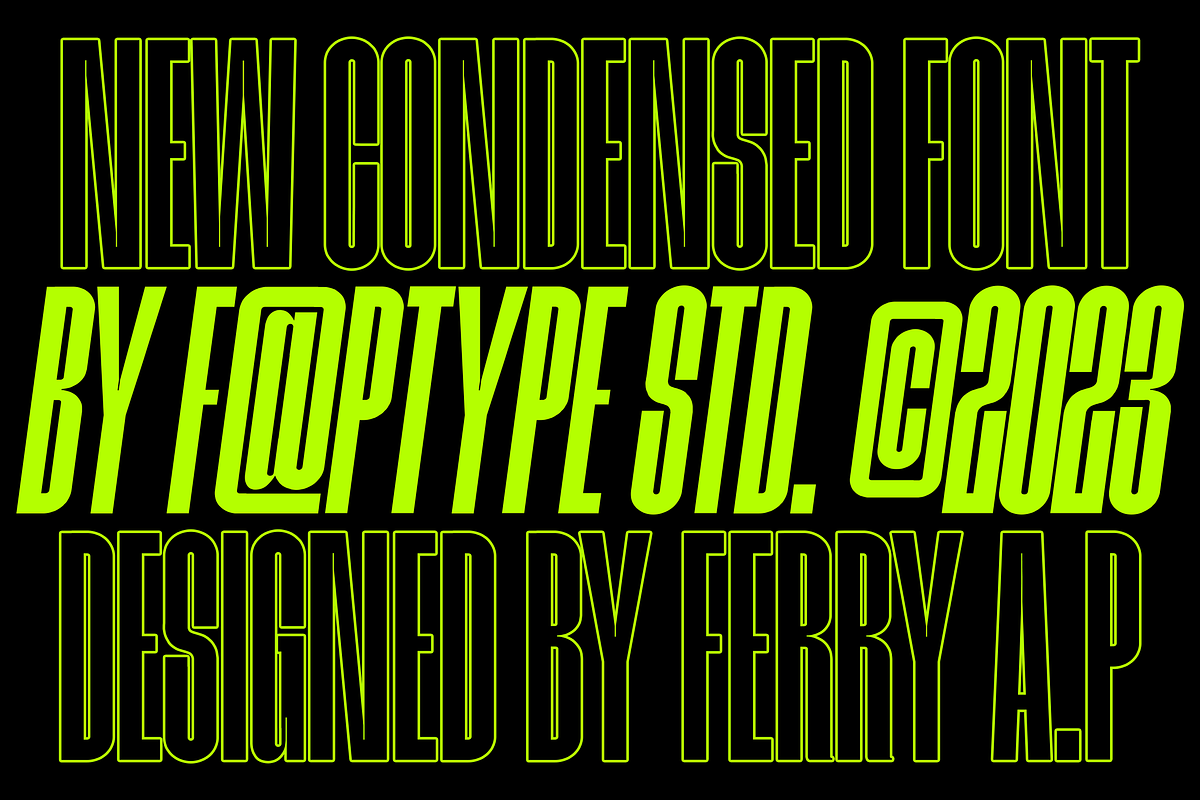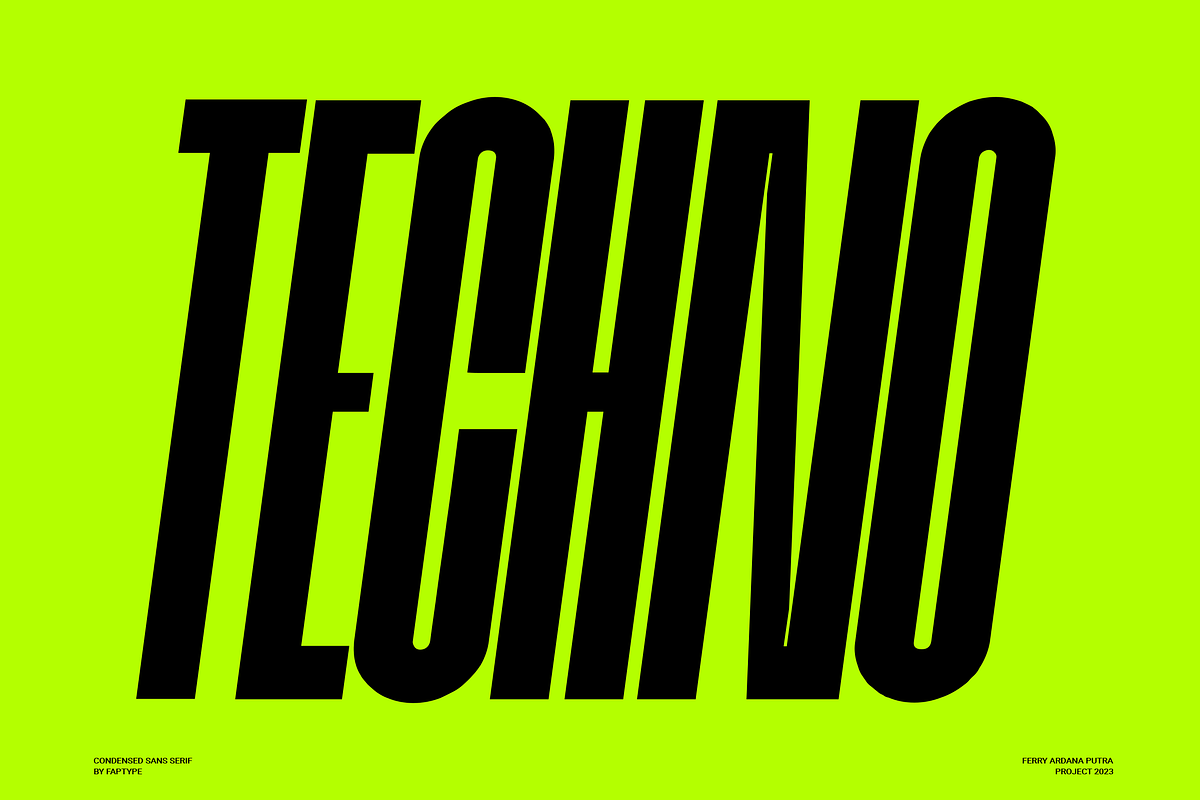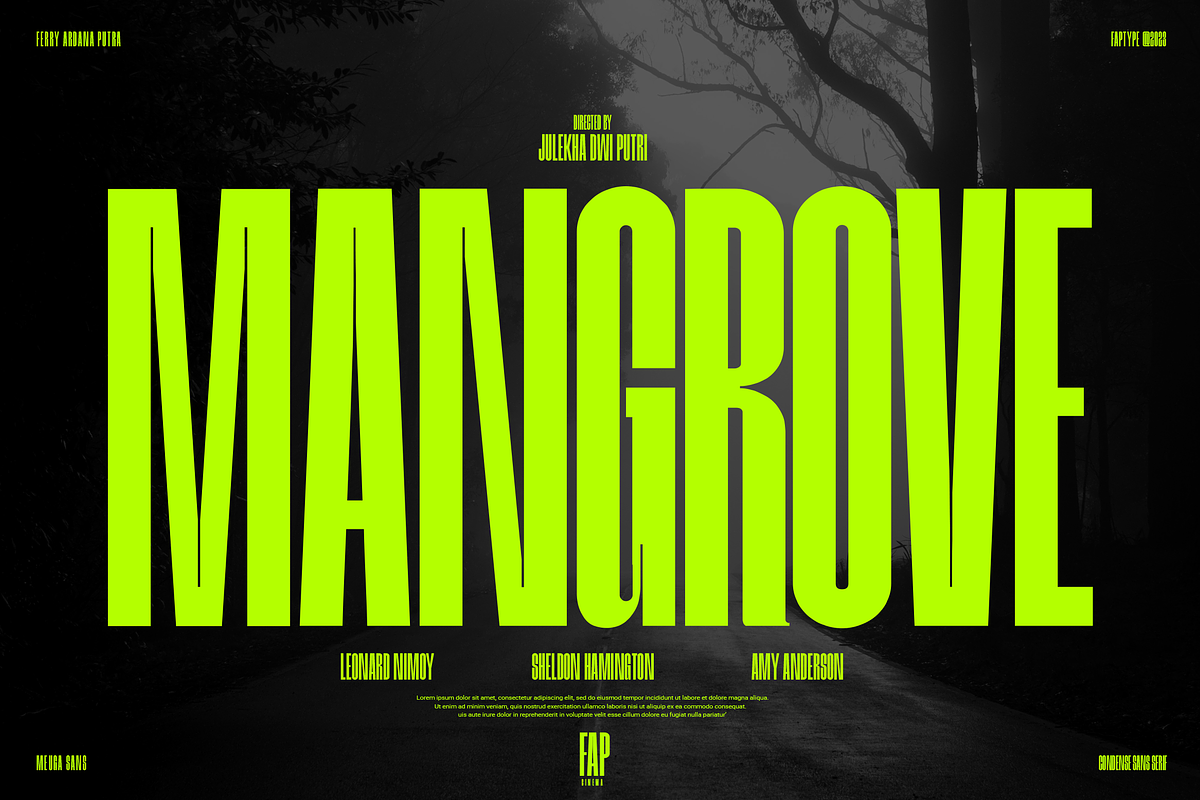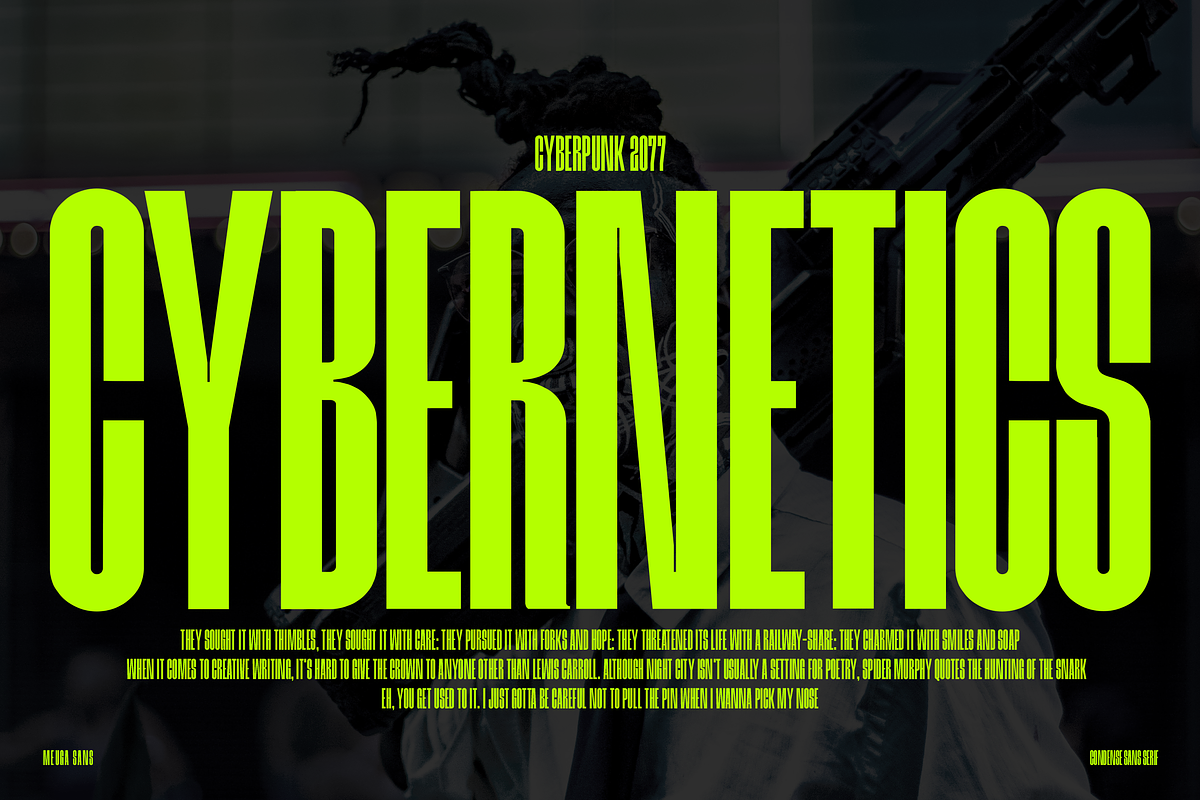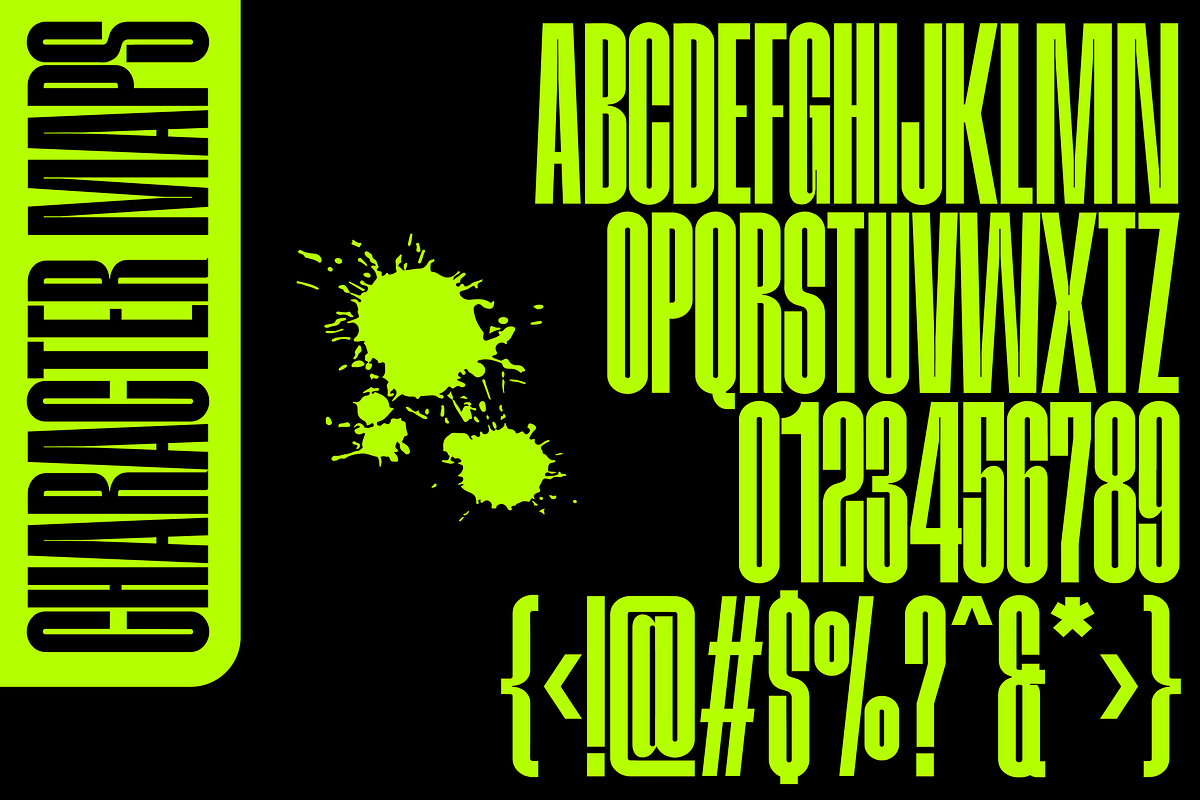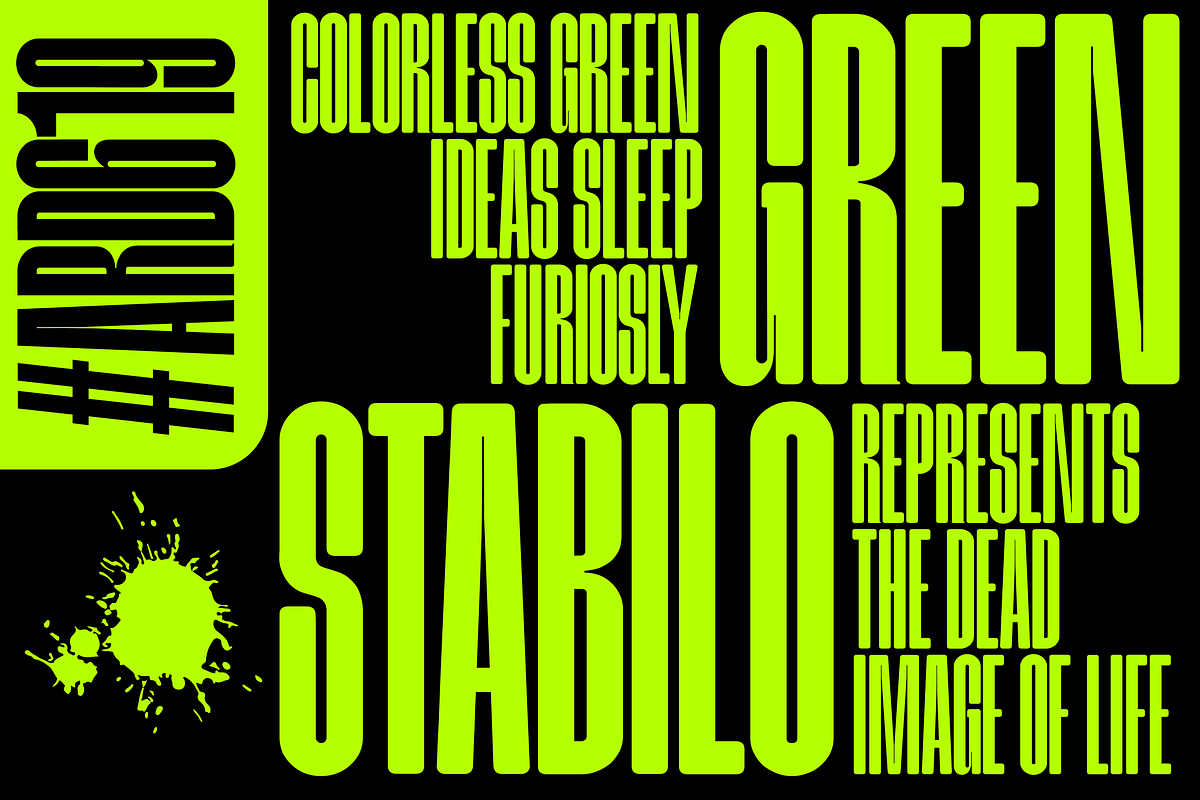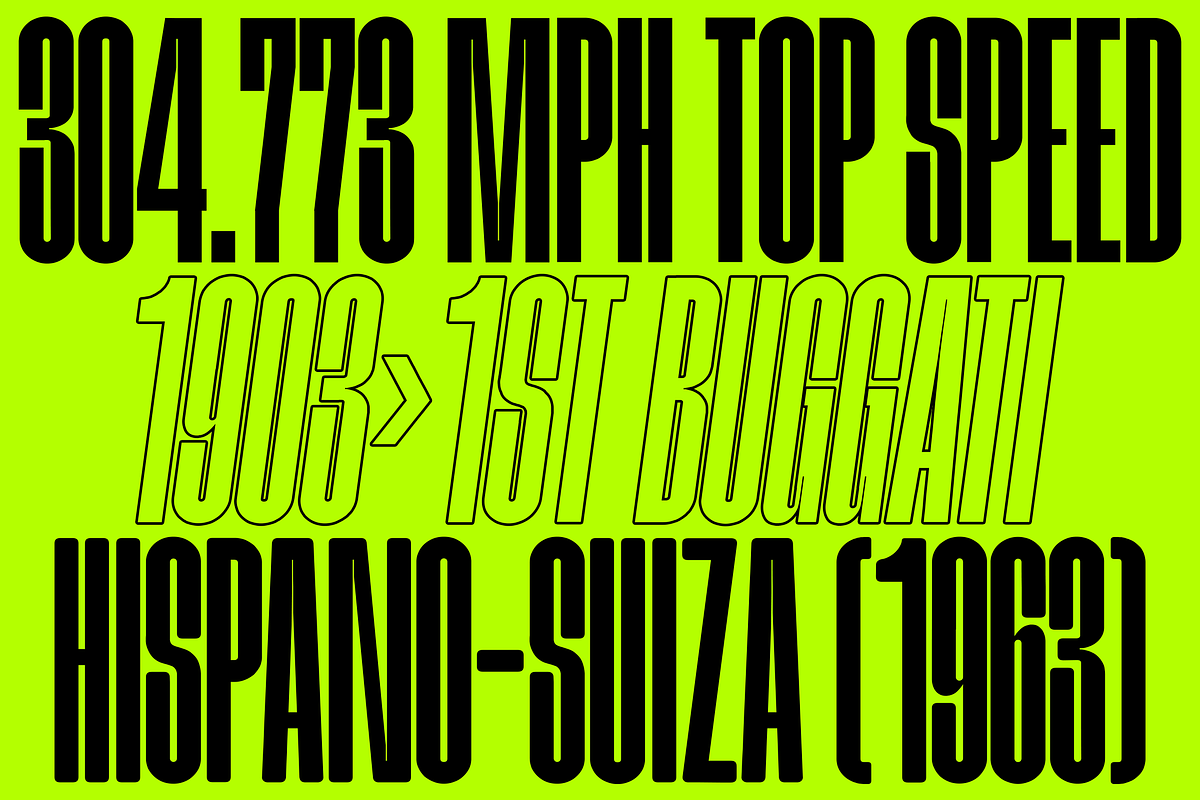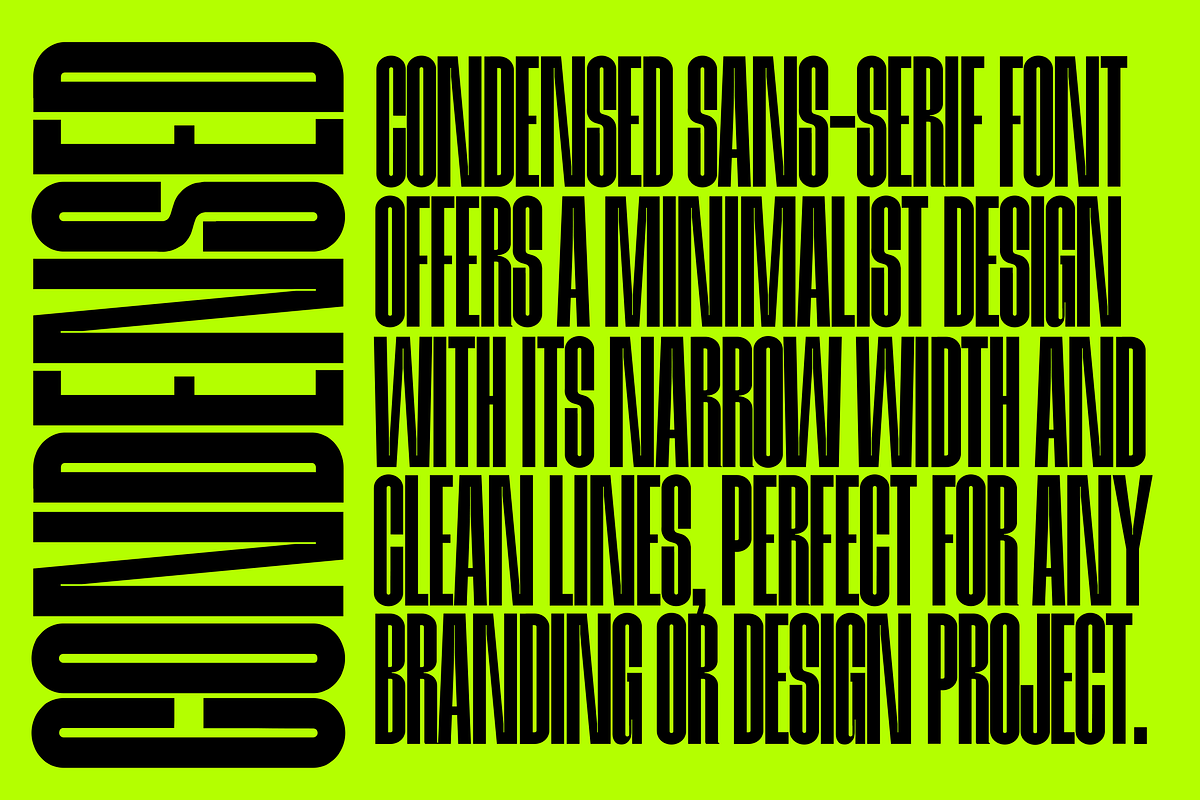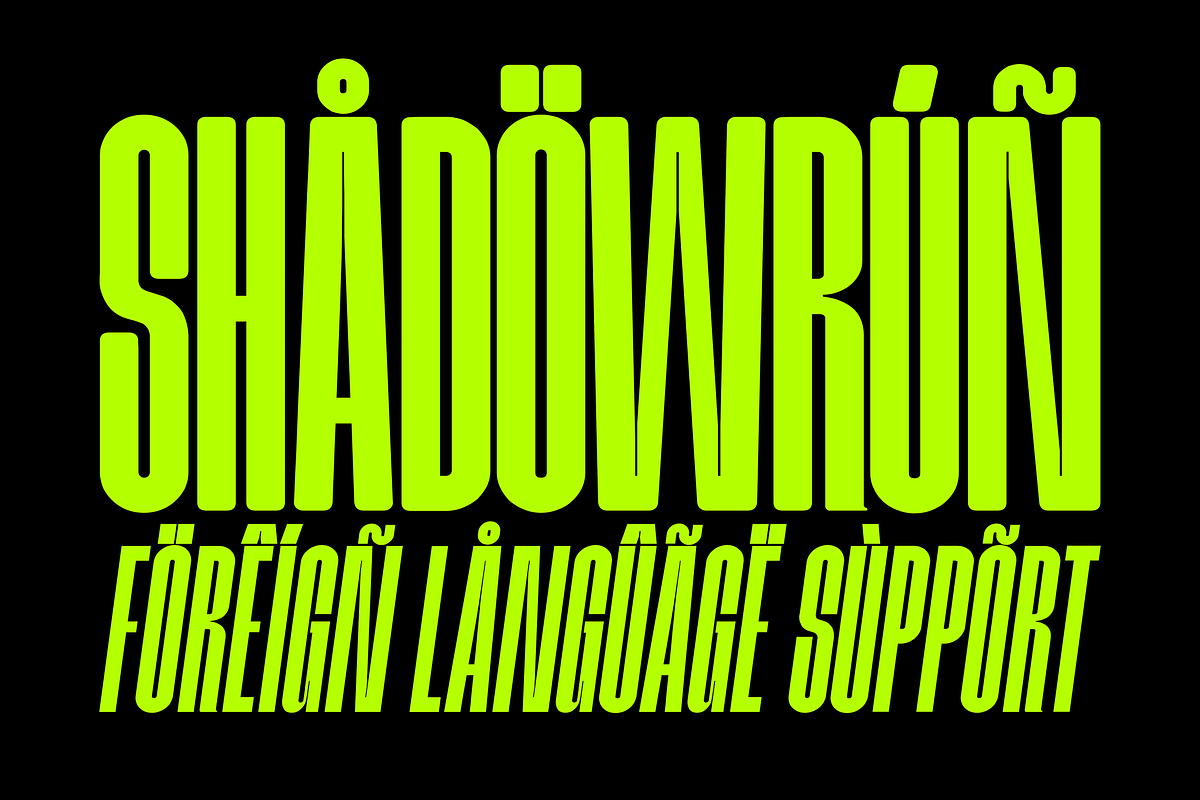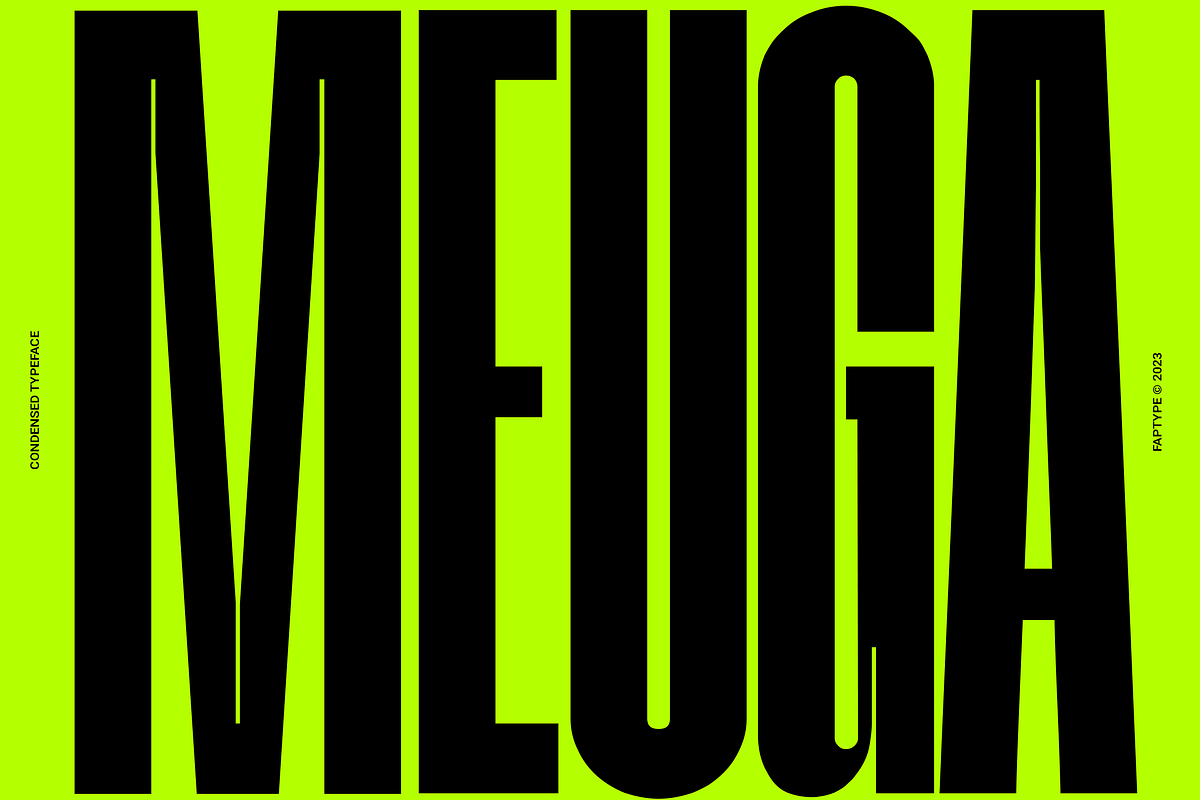
Meuga | Condensed Sans Serif Font
Introducing our sleek and modern condensed sans-serif font - Meuga.
Meuga is condensed sans-serif font that offers a minimalist design with its narrow width and clean lines, perfect for any branding or design project.
This condensed sans-serif font is perfect for anyone looking for a clean and modern look, with its narrow width and elegant lines. Add a contemporary touch to your designs with our condensed sans-serif font, perfect for headlines and titles in digital and print design.
This font is perfect for Headlines and titles, digital advertisements, brochures and flyers, infographics and data visualizations, navigation menus and labels, web designs, logotypes, t-shirts, and many more.
Meuga features:
A full set of uppercase
Numbers and punctuation
Multilingual language support
Condensed Style